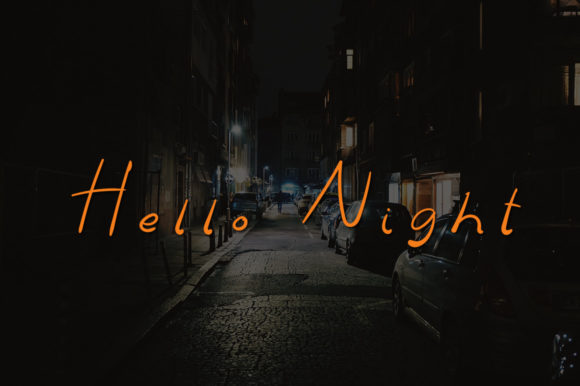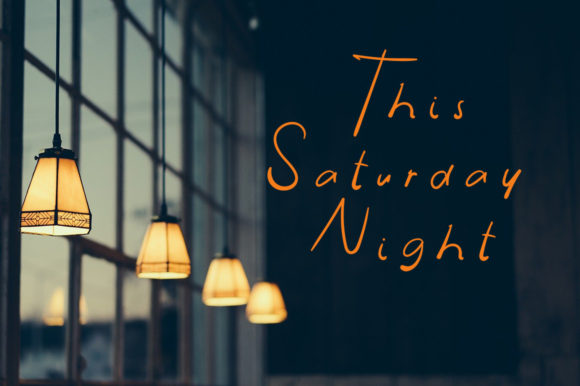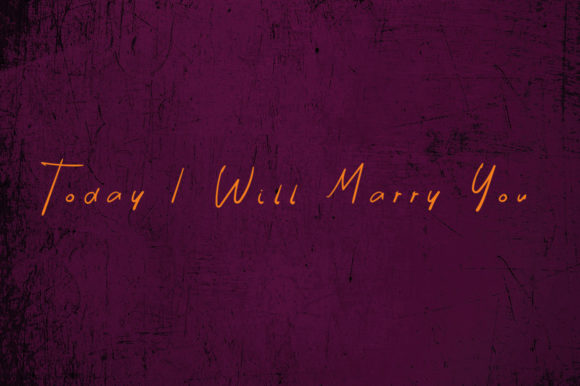
The Rocky Font
About The Rocky Font
The Rocky is a unique handwritten font. Add this font to your creative ideas and notice how it will make them stand out!